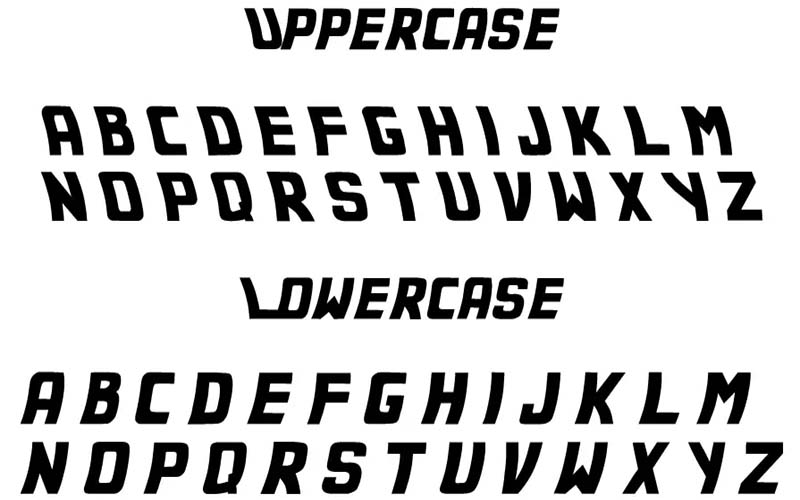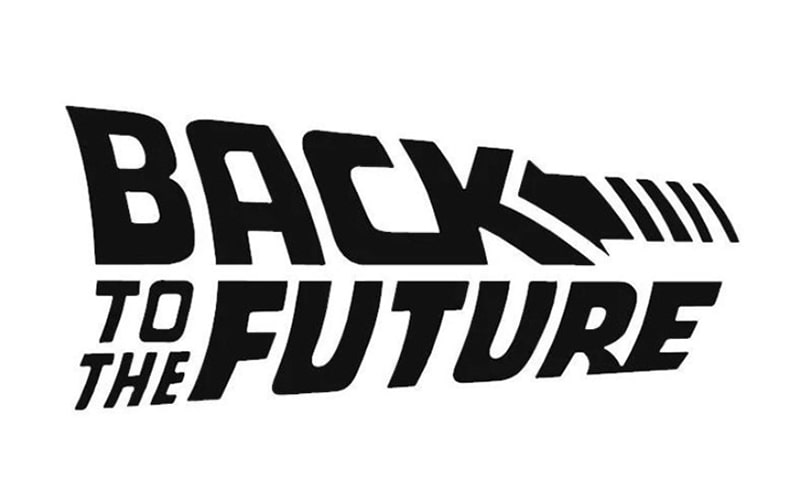
Back to the Future is a Sci-Fi, Techno typeface that is a time travel film series. Cyril Bourreau took charge of designing this font logo for the first time in 2002.
Back to the Future is an American franchise science fiction adventure comedy movie that is directed and written by Robert Zemeckis.
This film series tells the story of the adventure travel of a high school student and an eccentric scientist in different periods of the history of Hill Valley, California.
This Display font comes with 88 characters set like 26 uppercase letters, 26 lowercase letters, and 10 numbers. In addition to the numbers and ligatures of the uppercase and lowercase schemes, there are 26 special symbols, including punctuation marks.
| Style: | Sci-Fi, Techno, Typeface |
| Font Designer: | Cyril Bourreau |
This font has bold characters that are ideal in a situation where the text is important and needs special consideration. Back To The Future Font was specially designed for being used in a movie logo.